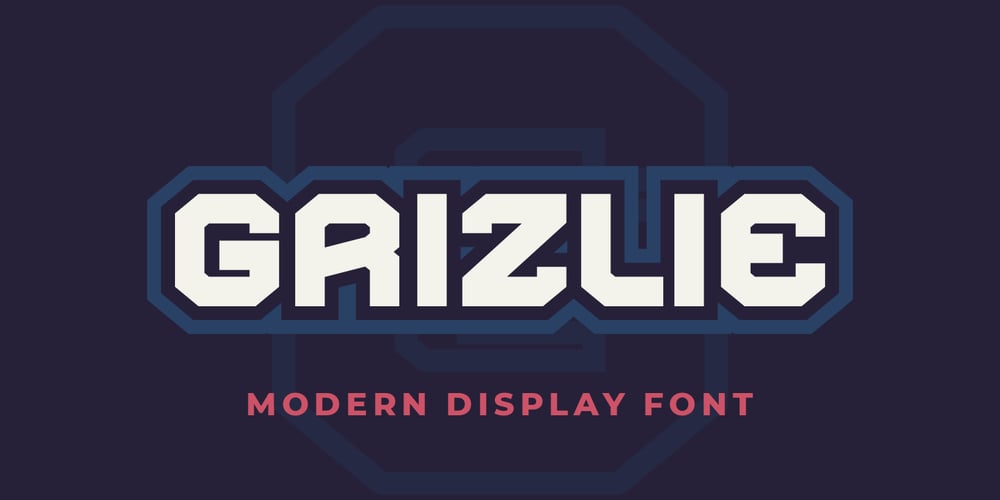
Grizlie
Grizlie font
Grizlie Font Family was designed by Burhan Afif and published by HansCo. Grizlie contains 1 styles and family package options. GRIZLIE is a masculine and bold font with squared style that will make your design looks modern, and geometric. You can use this font for any purpose, especially to make logotype like a sport logo brand. This typeface is comes in ALL CAPS, punctuation, symbols, numerals, etc also support multilingual in all caps.Highly recommended to use it in OpenType capable software – there are plenty out there nowadays as technology catches up with design. The OpenType features can be accessed by using programs such as Adobe Illustrator, Adobe InDesign, Adobe Photoshop Corel Draw X version, Afinity and more. Enjoy!